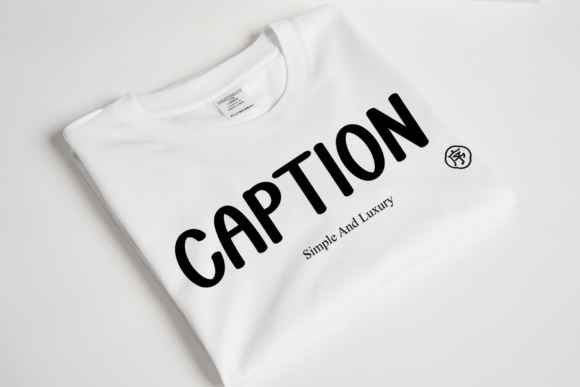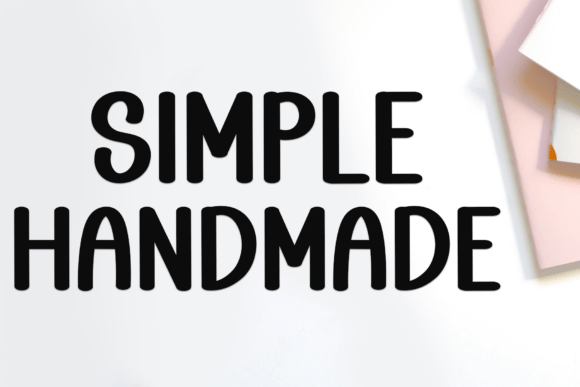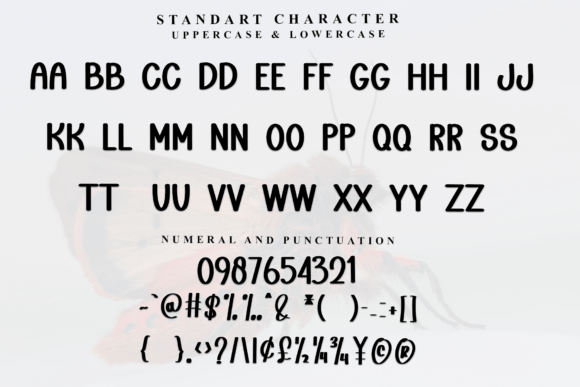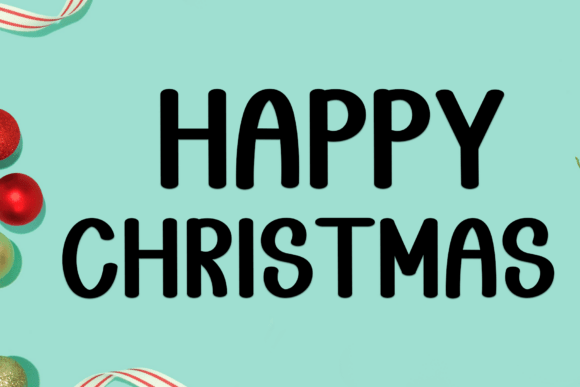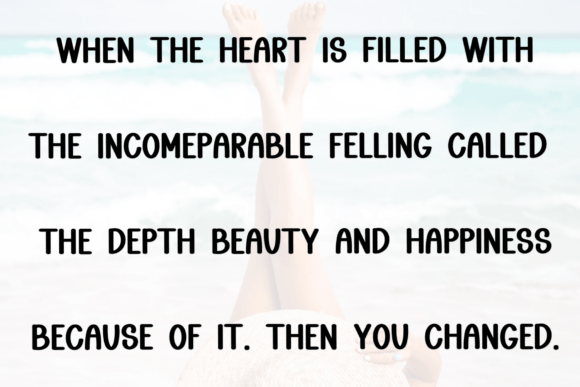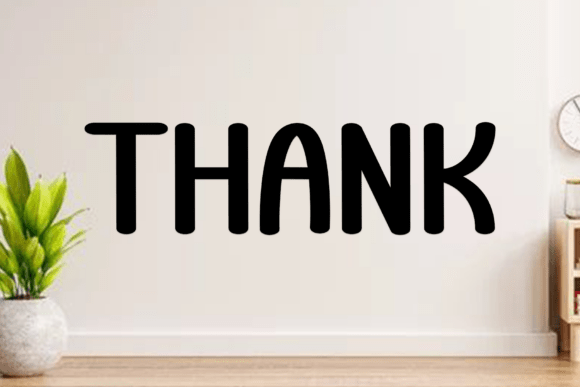
Introducing Beach Gravity Font: The Ultimate Holiday Typeface
Are you looking for a font that embodies the spirit of the holiday season? Do you want to add a touch of magic to your designs and make them stand out? Look no further than Beach Gravity Font, a festive and merry typeface that’s perfect for greeting cards, gift tags, and holiday-themed projects.
Beach Gravity Font is a decorative typeface that’s designed to capture the essence of the holiday season. With its whimsical flair and enchanting elements, this font is sure to bring a cheerful and nostalgic ambiance to your words. Whether you’re designing holiday cards, crafting gift tags, or creating festive social media graphics, Beach Gravity Font is the perfect choice.
Beach Gravity Font is specifically designed for holiday-themed projects. Its decorative elements and whimsical flair make it perfect for:
- Greeting cards: Create beautiful and festive holiday cards that will make your loved ones feel special.
- Gift tags: Add a touch of magic to your gift tags and make them stand out.
- Holiday-themed projects: Use Beach Gravity Font to create festive social media graphics, blog posts, and website headers.
Beach Gravity Font is PUA encoded, which means you can access all of the amazing glyphs and ligatures with ease. This makes it easy to use the font in your designs and ensures that you can take full advantage of its decorative elements.
Why Choose Beach Gravity Font?
There are many reasons why Beach Gravity Font is the perfect choice for your holiday designs. Here are just a few:
- Unique and festive design: Beach Gravity Font has a unique and festive design that’s sure to make your designs stand out.
- Easy to use: The font is PUA encoded, making it easy to access all of the glyphs and ligatures.
- Versatile: Beach Gravity Font can be used for a wide range of holiday-themed projects, from greeting cards to social media graphics.
- High-quality: The font is designed to be high-quality and easy to read, making it perfect for both digital and print designs.
Tips for Using Beach Gravity Font
Here are a few tips for using Beach Gravity Font in your designs:
- Use it sparingly: Beach Gravity Font is a decorative font, so it’s best to use it sparingly to add a touch of magic to your designs.
- Pair it with a simple font: Pair Beach Gravity Font with a simple font to create a beautiful contrast and make your designs stand out.
- Experiment with different colors: Beach Gravity Font looks great in a wide range of colors, so don’t be afraid to experiment and find the perfect color for your design.